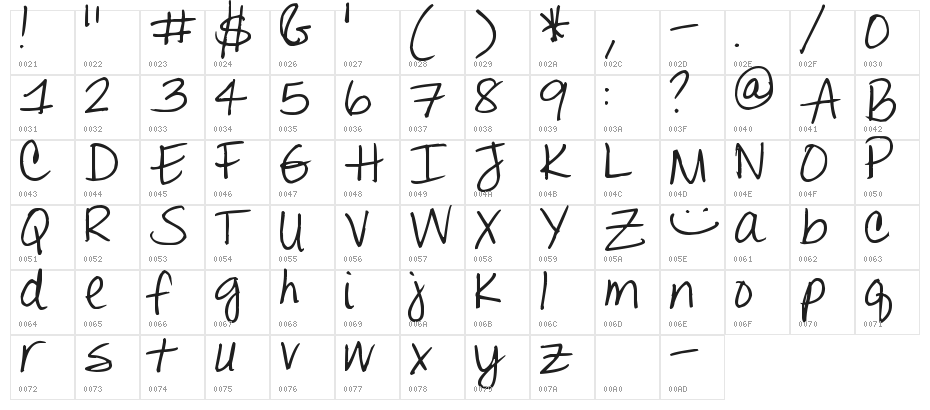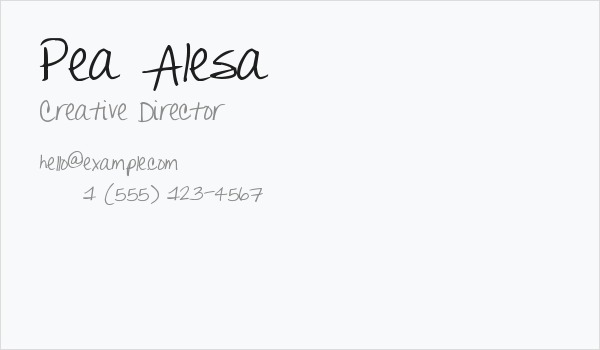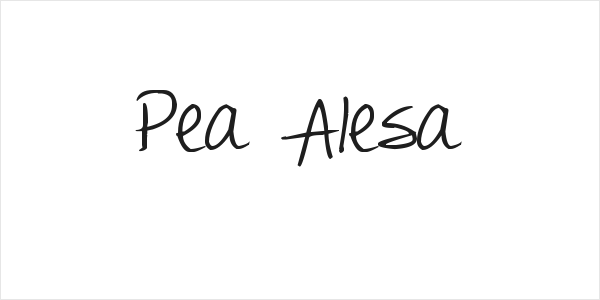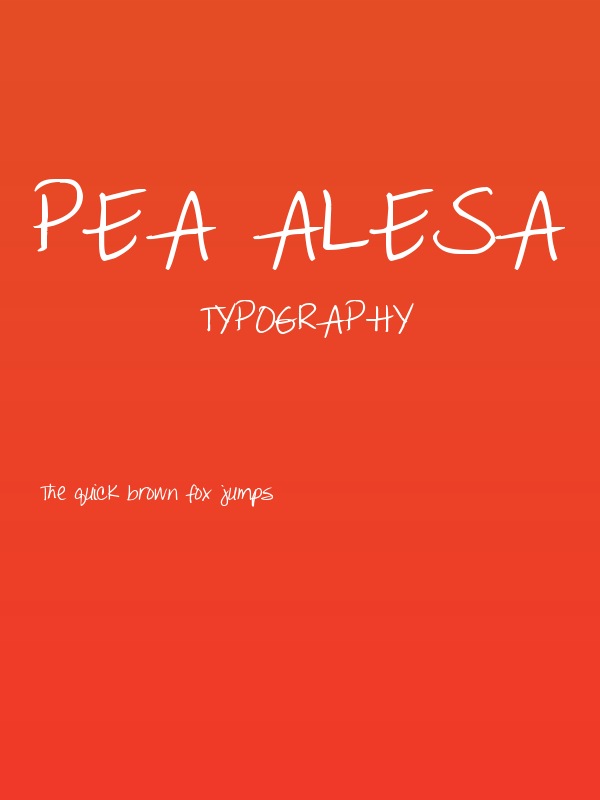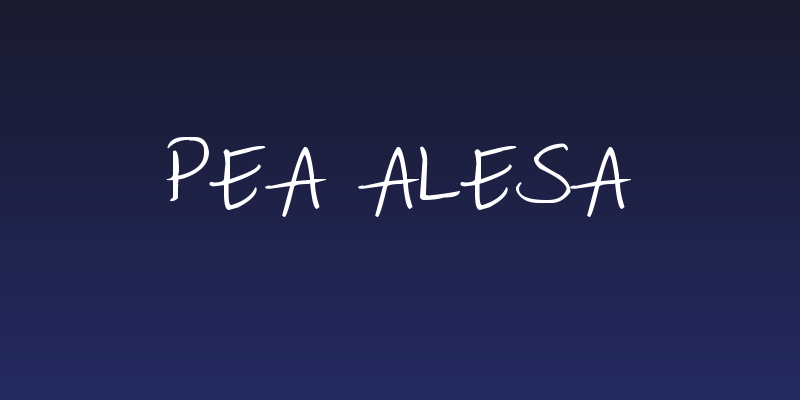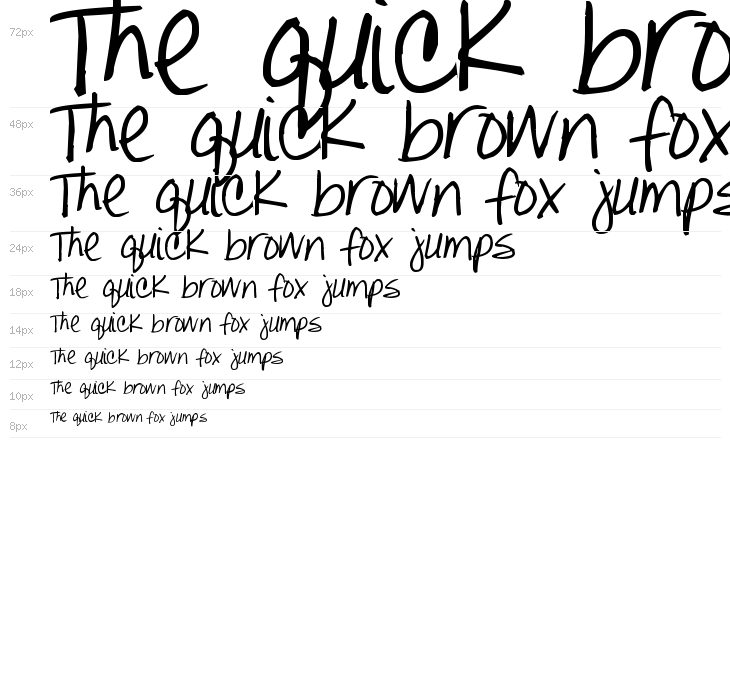
Pea Alesa Font
Pea Alesa Description
This font features a playful, handwritten style that exudes a casual and friendly vibe. The letters are slightly slanted, giving it a dynamic and informal appearance. The strokes are uneven, adding to the hand-drawn aesthetic, and the characters are well-spaced, maintaining legibility. The uppercase letters are bold and prominent, while the lowercase letters are more fluid and connected, enhancing the font's approachable nature. The numbers and special characters follow the same whimsical style, making it versatile for various creative projects.
| Proposed Projects | Ideal for greeting cards, personal blogs, children's books, and informal branding. |